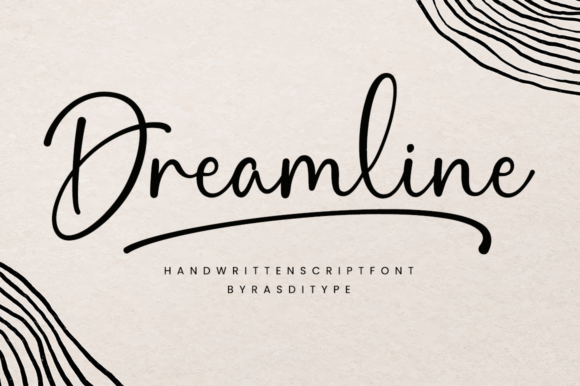
Dreamline Font: The Elegant Handwritten Font for Personalized Designs
Are you looking for a font that can add a touch of elegance and personality to your designs? Look no further than the Dreamline font. This unique and elegant handwritten font is perfect for a variety of designs that require a personalized style, such as wedding invitations, thank you cards, weddings, greeting cards, logos, and more.
What is Dreamline Font?
Dreamline font is a beautifully crafted handwritten font that exudes elegance and sophistication. Its unique and flowing lines make it perfect for designs that require a personal touch. The font is highly versatile and can be used for a wide range of projects, from wedding invitations and greeting cards to logos and branding materials.
Characteristics of Dreamline Font
The Dreamline font has several characteristics that make it stand out from other fonts. Some of its key features include:
- Unique and elegant design: The Dreamline font has a distinctive and elegant design that is sure to make your designs stand out.
- Handwritten style: The font has a handwritten style that gives it a personal and intimate feel.
- Flowing lines: The font’s flowing lines make it perfect for designs that require a sense of movement and fluidity.
- Versatile: The Dreamline font is highly versatile and can be used for a wide range of projects.
Uses of Dreamline Font
The Dreamline font is perfect for a variety of designs that require a personalized style. Some of the most popular uses of the font include:
- Wedding invitations: The Dreamline font is perfect for wedding invitations, as it adds a touch of elegance and sophistication to the design.
- Thank you cards: The font is also great for thank you cards, as it provides a personal and intimate feel to the design.
- Greeting cards: The Dreamline font is perfect for greeting cards, as it adds a touch of elegance and personality to the design.
- Logos and branding materials: The font is also great for logos and branding materials, as it provides a unique and memorable identity for businesses.
Benefits of Using Dreamline Font
There are several benefits to using the Dreamline font in your designs. Some of the most significant advantages include:
- Unique and distinctive design: The Dreamline font has a unique and distinctive design that is sure to make your designs stand out.
- Elegant and sophisticated feel: The font provides an elegant and sophisticated feel to designs, making it perfect for high-end projects.
- Highly versatile: The Dreamline font is highly versatile and can be used for a wide range of projects.
- Easy to read: The font is easy to read, making it perfect for designs that require a clear and concise message.
Tips for Using Dreamline Font
Here are some tips for using the Dreamline font in your designs:
- Use it for headlines and titles: The Dreamline font is perfect for headlines and titles, as it adds a touch of elegance and sophistication to the design.
- Pair it with other fonts: The font can be paired with other fonts to create a unique and visually appealing design.
- Use it for body text: The Dreamline font can also be used for body text, as it is easy to read and provides a personal and intimate feel to the design.
- Experiment with different colors: The font can be used with different colors to create a unique and visually appealing design.
In conclusion, the Dreamline font is a unique and elegant handwritten font that is perfect for designs that require a personalized style. Its flowing lines and elegant design make it perfect for a variety of projects, from wedding invitations and greeting cards to logos and branding materials. With its highly versatile design and easy-to-read style, the Dreamline font is sure to make your designs stand out.
- What is the Dreamline font?: The Dreamline font is a unique and elegant handwritten font that is perfect for designs that require a personalized style.
- What is the Dreamline font used for?: The Dreamline font is perfect for a variety of designs, including wedding invitations, thank you cards, greeting cards, logos, and branding materials.
- Is the Dreamline font easy to read?: Yes, the Dreamline font is easy to read, making it perfect for designs that require a clear and concise message.